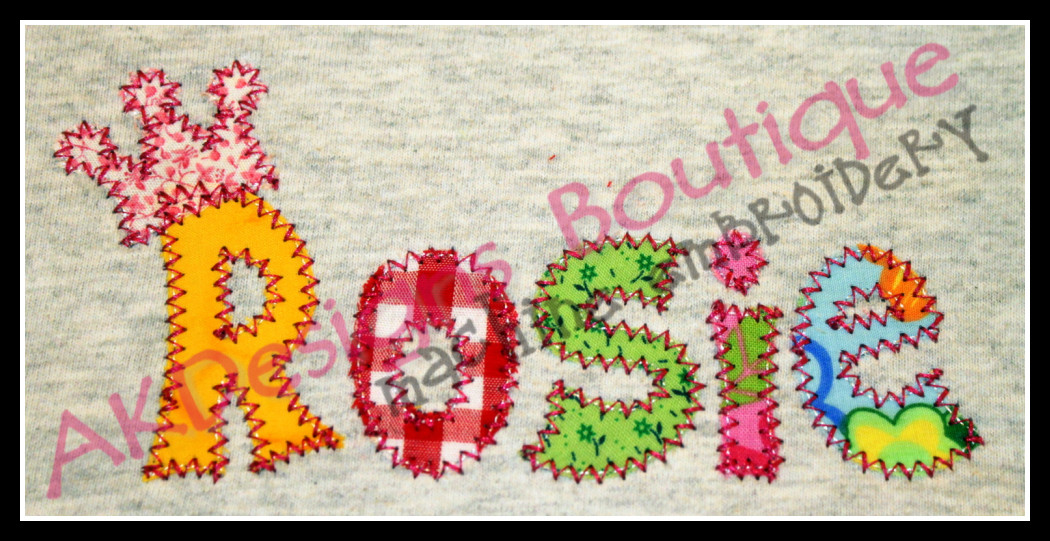
No 1353 Applique Princess Font Machine Embroidery Designs 2 inch high
This set contains 77 individual designs:
• 26 Zig Zag Stitch Applique Uppercase Letters – 2" high
• 26 Zig Zag Stitch Applique Lowercase Letters
• 10 Zig Zag Stitch Applique Numbers
• 3 Zig Zag Stitch Applique Crowns
• 3 Zig Zag Stitch Applique Hearts
• 9 Alternate Zig Zag Stitch Applique letters with hearts [a, b, d, g, i, j, o, p and q]
Please NOTE - TIME SAVER - I didn't cut the "heart" out of the "a" in Ella to show that as long as the thread and fabric colors contrast enough, you don't have to and the overall look is still very cute!
Designed to combine and spell names
This font will look very cute stitched for a boy too ~ just don’t add the hearts & crowns!